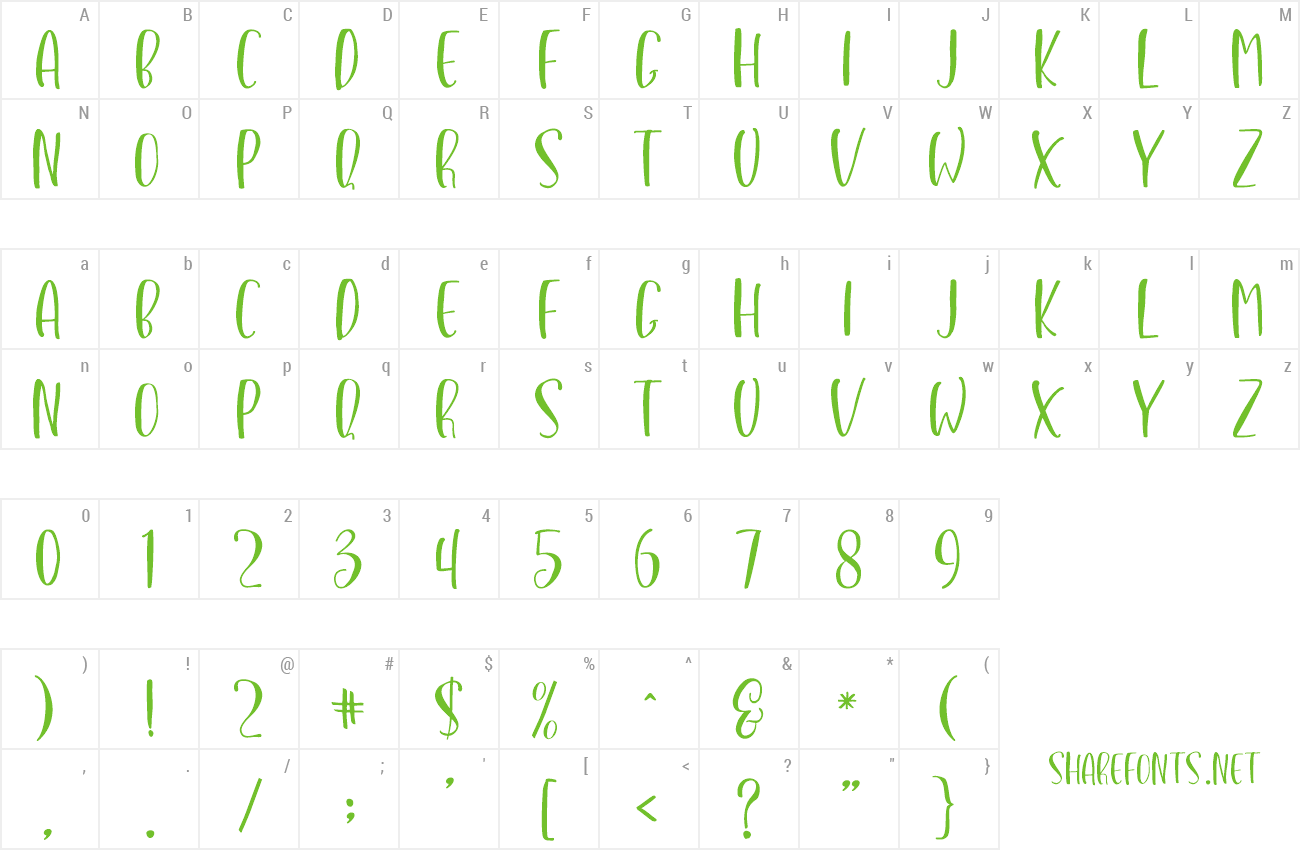
It is perfect for branding wedding invites and cards.
The aisyah beautiful and elegant script font with delicate feel free downloadaisyah script is perfect for feminine logos signatures branding invitations design business cards weddings cards design signature logo quote posts product packaging and many more. This font suitable for your design project especially for branding and lettering. Sophia ronald lovely script font. This font is perfect for feminine logos signature logo invitations design monograms wedding cards fashion apparel branding label or logotype.
Made with naturally handwritten and modern style it brings beautiful and modern typeface. It is full of hearts and glyphs. Whats include in this package. Presenting lovely script font.
Sophia ronald includes full set of lovely uppercase and lowercase letters multilingual symbols numerals punctuation and ligaturesalso it includes. Including initial and terminal letters alternates ligatures and multiple language support. Lovely fabulous script features 340 glyphs and 124 alternate characters. It is perfect for branding wedding invites and cards.
My lovely a beautiful script font make with many swashes free downloadthis font includes heart swashes with lowercase and uppercase letters numerals and punctuation.